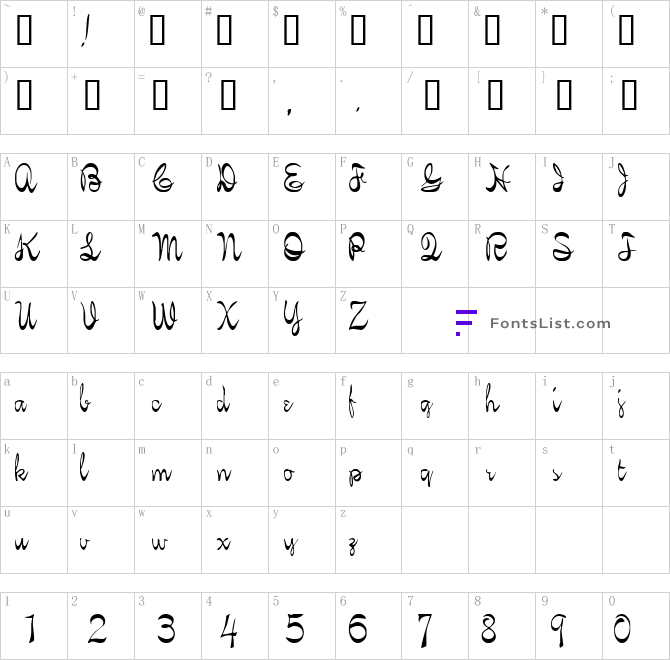
- Font Name:Dalia
Dalia-Normal.ttf is a very beautiful artistic font, Dalia-Normal.ttf is widely used in the design and printing of various books and pictures,Dalia-Normal.ttf has a strong visual impact,Dalia-Normal.ttf is a commonly used font in newspapers, magazines and books, and is used in posters, e-commerce Poster design, store design, logo design, font design and other fields.Dalia-Normal.